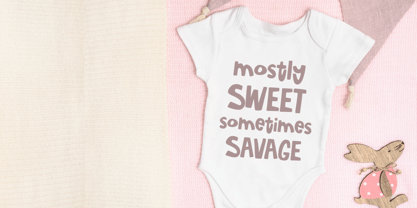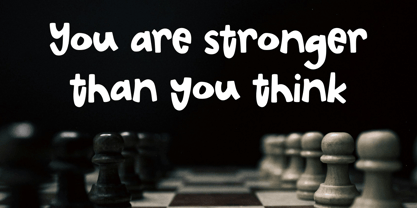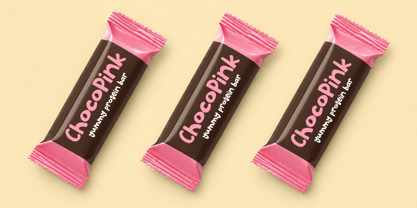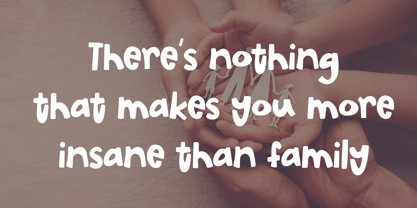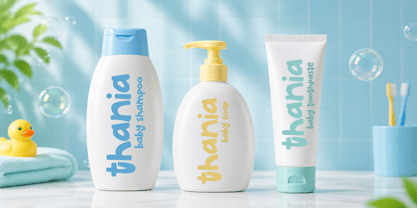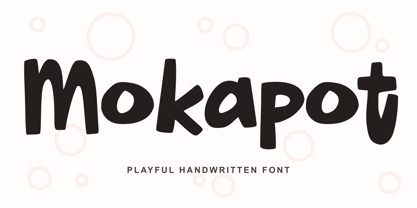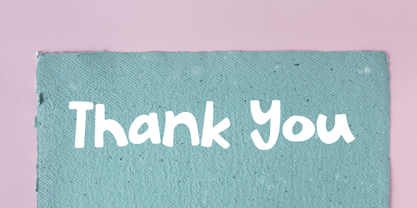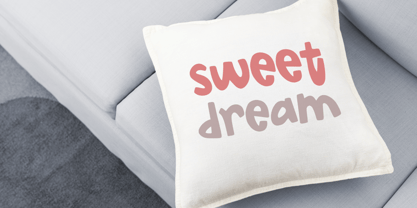
Mokapot
The Mokapot Font Family was designed by Abo Daniel and published by Abo Daniel. Mokapot contains 1 styles. More about this family
Mokapot is a cheerful, chunky display font that radiates warmth and personality. Inspired by carefree doodles and childlike creativity, each letter is crafted with soft curves and slightly uneven edges, giving it a lively, hand-drawn feel that instantly grabs attention.
With its bold presence and friendly tone, Mokapot is perfect for designs that want to feel fun, approachable, and full of character. Whether you're working on kids’ products, packaging, posters, branding, or social media graphics, this font brings a sense of joy and spontaneity to every word.
Mokapot stands out with its rounded forms, balanced thickness, and playful rhythm—making it highly readable while still maintaining its quirky charm. It’s the kind of typeface that turns simple text into a visual statement.
Perfect for:
• Children’s designs & educational materials
• Product packaging & labels
• Posters & headlines
• Branding with a fun personality
• Social media content
Add a splash of happiness to your typography with Mokapot—a font that doesn’t take itself too seriously, but always makes an impact.